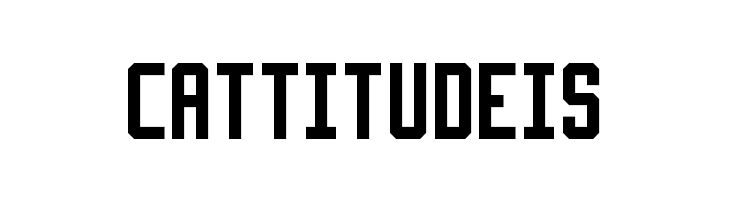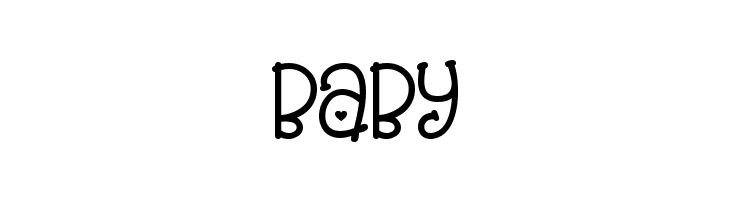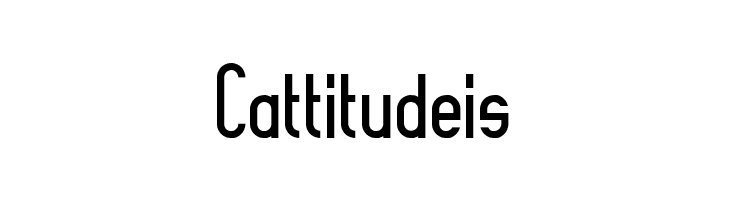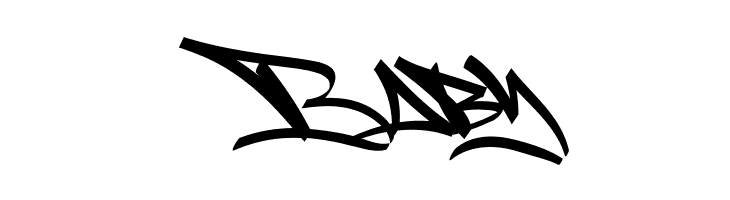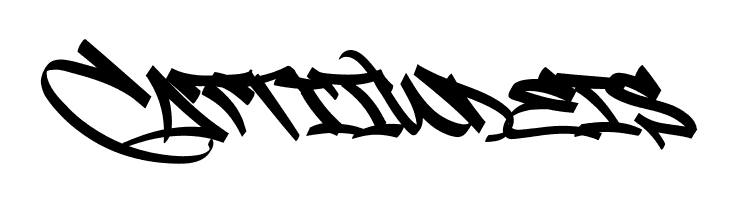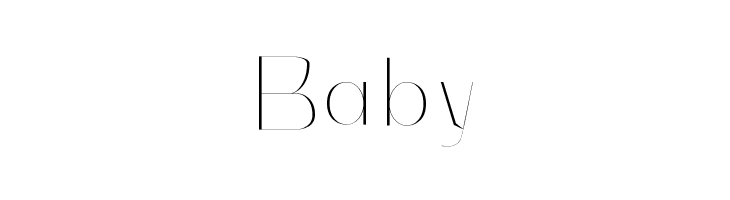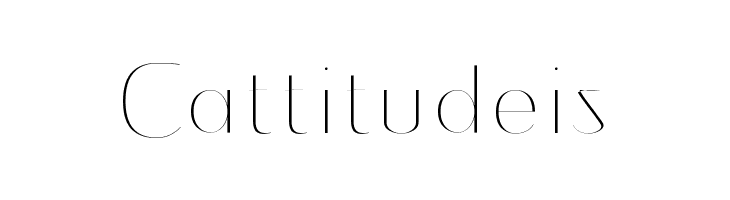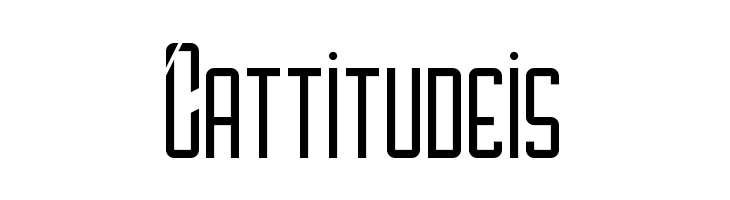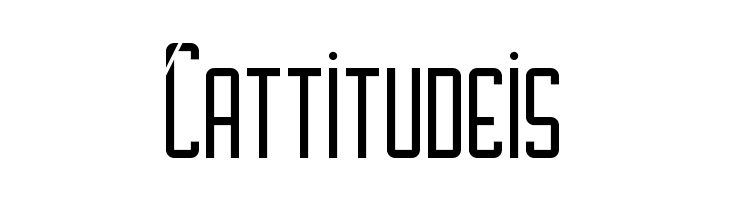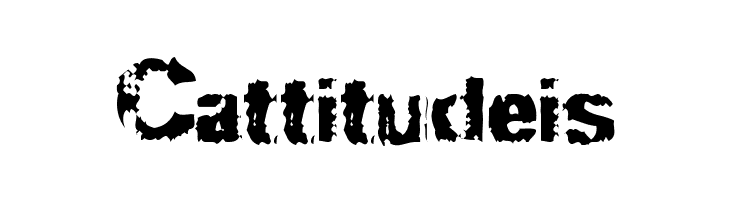
Bold, graffiti-inspired font with dynamic and expressive characters.
An abstract, graffiti-inspired decorative font with bold, swirling forms.
A bold, graffiti-inspired font with sharp angles and sweeping lines.
A sleek, ultra-thin font with a modern and elegant design.
A modern, sleek font with elongated, narrow characters and a minimalistic style.
A sleek, modern font with elongated, narrow characters and a minimalist style.
A sleek, ultra-thin font with elongated, narrow characters for a modern look.
A bold, dripping font with a spooky, oozing effect.
A playful, bold font with irregular, blob-like shapes and a fluid, organic style.
A playful, gooey font with a dripping slime effect.
A bold, dripping font with a spooky, fluid design.
A bold, high-contrast font with a modern, geometric style.
A bold, condensed font with tall, narrow characters and high contrast.
A dynamic, expressive handwritten font with fluid, cursive strokes.
A modern, sleek sans-serif font with tall, narrow characters and uniform stroke width.
A modern, slim sans-serif font with a clean and balanced appearance.
A lively handwritten font with fluid strokes and a casual style.
A bold, dynamic script font with fluid, energetic strokes.
A sleek, modern font with elongated, narrow characters and sharp edges.
A modern, narrow font with a slashed, futuristic design.
A playful, cursive handwritten font with fluid, continuous strokes.
A playful, decorative font with characters formed by overlapping circles.
A playful, decorative font with rounded edges and whimsical elements.
A playful, dynamic handwritten font with irregular strokes and a casual appearance.
A distressed, grungy font with irregular, jagged edges and bold strokes.